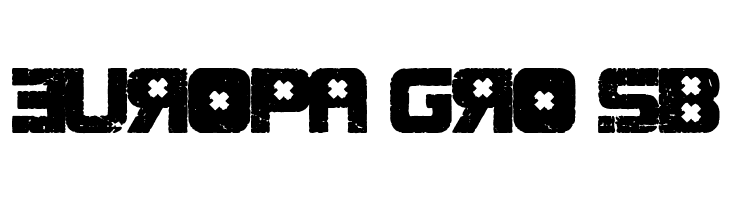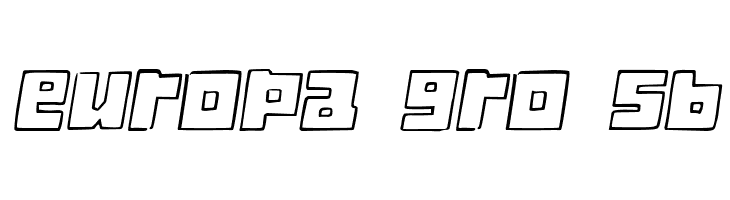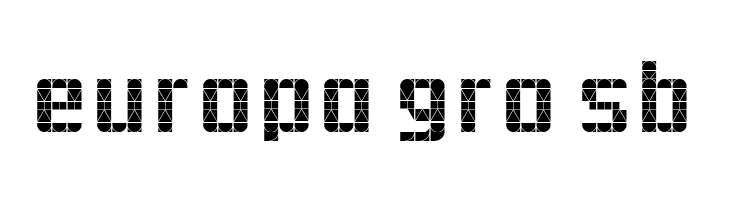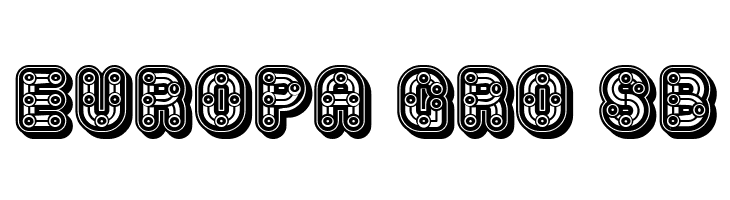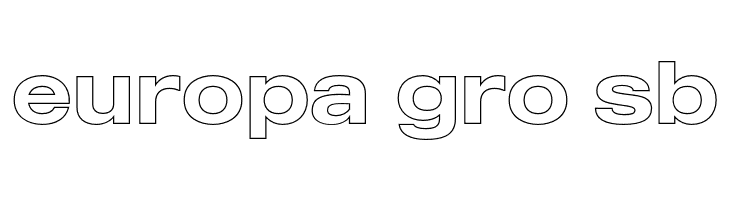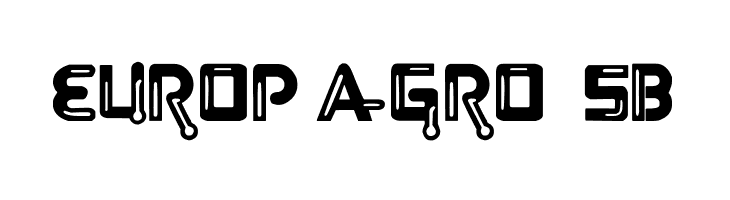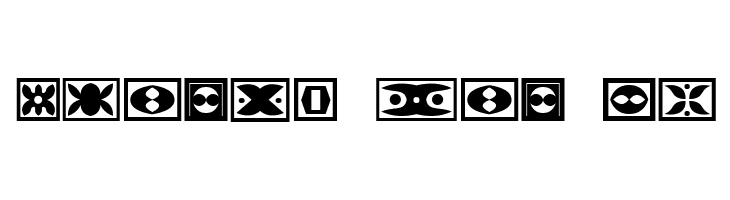
A bold, geometric font with intricate abstract patterns within each character.
A bold, distressed font with an urban, gritty aesthetic.
A bold, geometric outline font with a modern and futuristic style.
A bold, geometric patterned font with a modern and edgy aesthetic.
A bold, decorative font with a futuristic, circuit-inspired design.
A bold, ethnic-inspired font with geometric and decorative elements.
A modern sans-serif outline font with a clean and balanced design.
Intricately patterned decorative font with a vintage feel.
A futuristic, circuit-inspired font with bold, geometric letterforms.
A decorative font featuring geometric ornamental border designs.